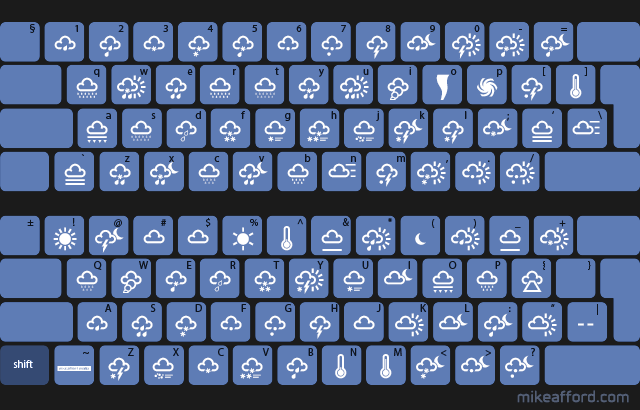
Weather Icon FONT : BB-04
92 glyph desktop font
The complete set of ‘BB’ weather icons in FONT format. Stylish single colour icons. 92 glyphs. TrueType, OpenType and web-font kit.
92 glyph Weather Icon Font and @font-face WebFont kit
This is the font version of the ‘BB’ Weather Symbol Set. With 92 weather conditions, this icon set is one of the most comprehensive sets available and this new font version allows you to incorporate the symbols in your own projects more easily than ever before. Ideal for mobile, web and print applications.
All of my 92 icon sets come with a full range of weather types including many extra conditions (blowing snow, lightning + hail, volcanic ash, smoke, tornado, freezing fog and many more) making them ideal for use with most popular data providers.
The font contains every single icon from the original set, mapped in order, from 1. sunny (= !) all the way to 91. volcanic ash (= {). The pack comes with a glyph guide listing the weather condition, Unicode value, and corresponding keyboard key. I’ve included a separate guide below for World Weather Online users which lists the WWO code and the corresponding font character for day and night. It’s also downloadable as a text file on the right.